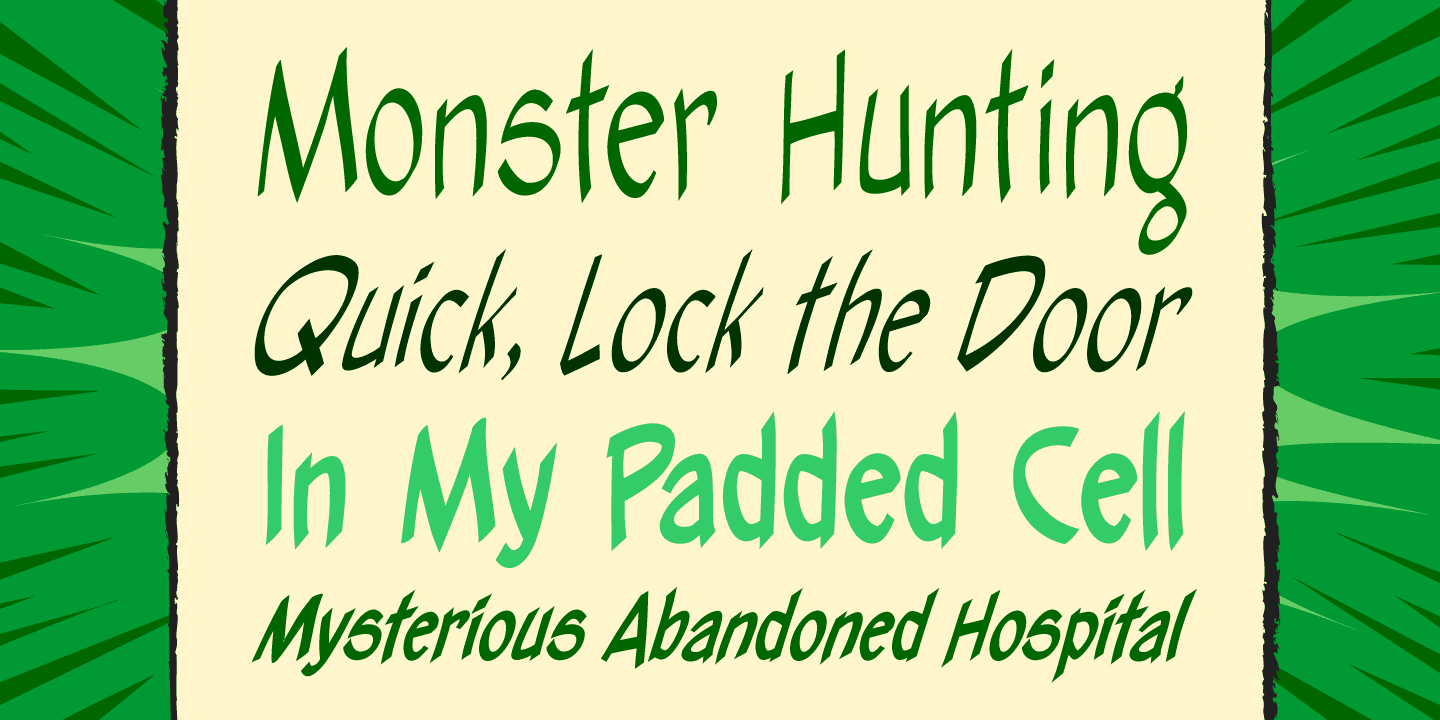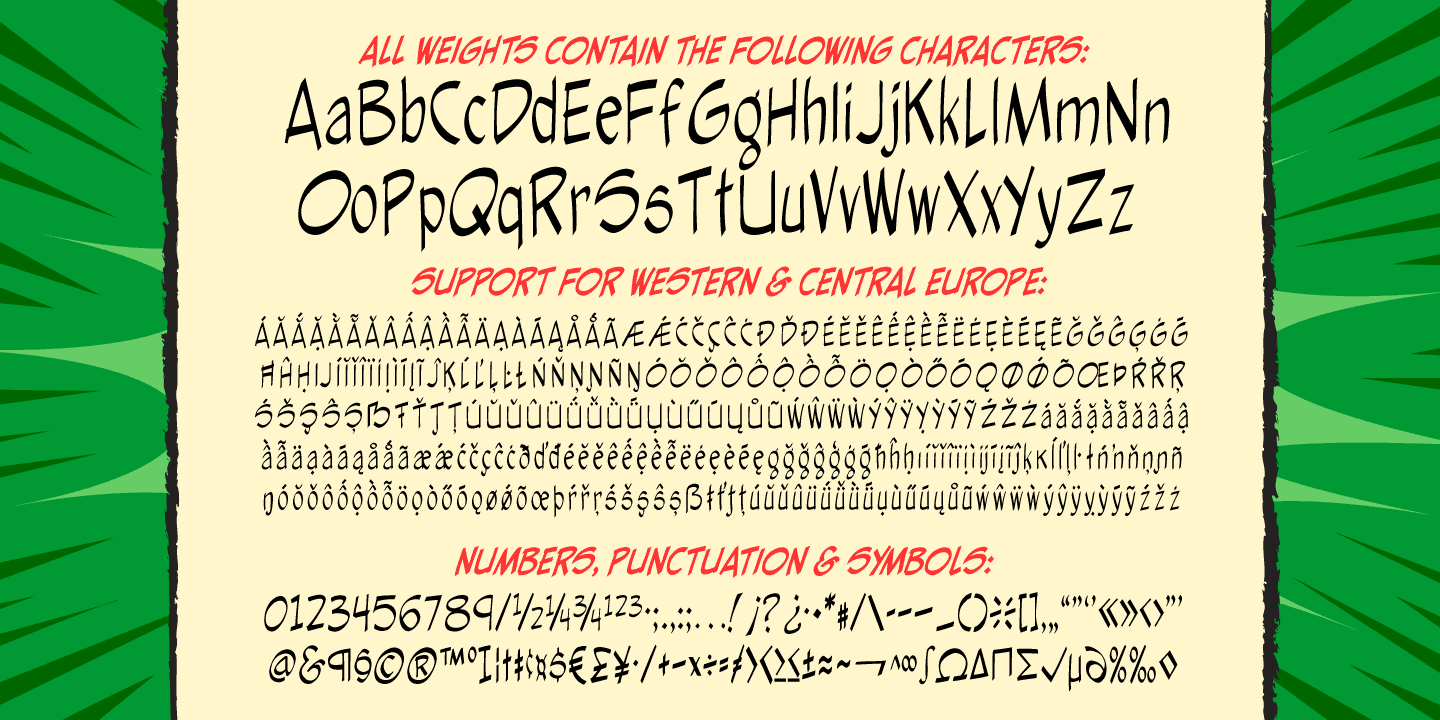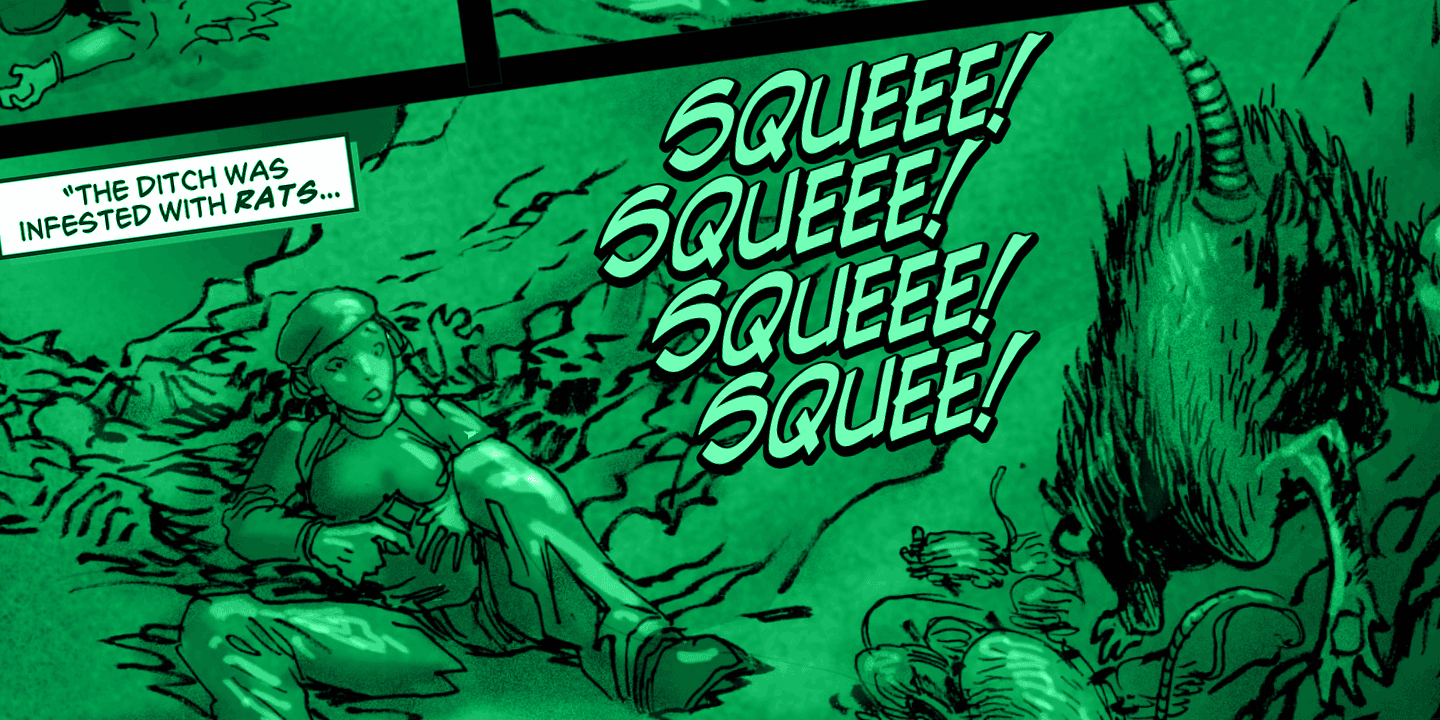
Hellshock
Font Family by Comicraft Fonts
Check into your local lunatic asylum with this font, etched on the walls of his padded cell by Comicraft's left-handed right-hand man, Dave Lanphear, for Jae Lee's Image comic 'Hellshock'.
Artwork from Elephantmen: War Toys by Starkings & Moritat